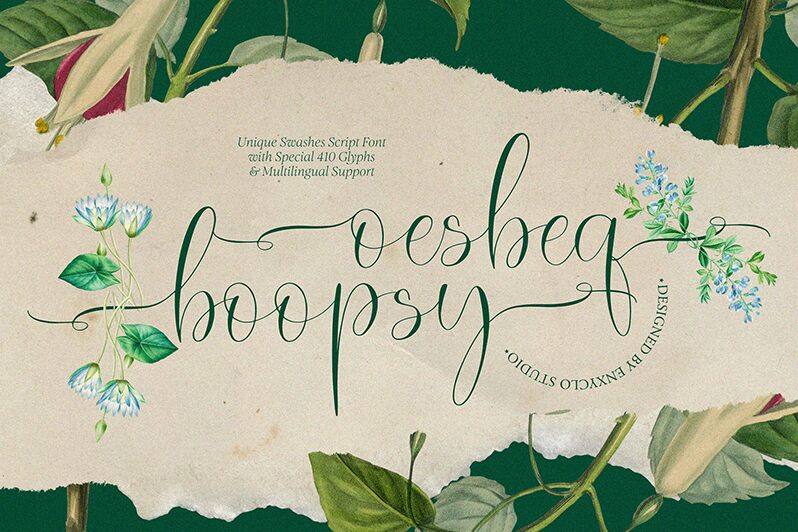
NCL Oesbeq Boopsy font, by Enxyclo Studio, is an ornamental and elegant handwritten typeface. Capturing human expression and emotions like no other, this script typeface flaunts luxurious, artistic, and sophisticated characters. Each letter in this font is highlighted by flowing forms and decorative details meant to give your texts a romantic and expressive visual appearance. Oesbeq Boopsy is a free handwritten font option for your exquisite typography projects.
Elegant ornamental typefaces like this one are particularly useful when you need to convey a fancy visual. Use it to create beautiful wedding invitations, luxury fashion designs, feminine branding designs, and holiday cards. Boopsy would also look fantastic on greeting cards, certificates, magazine covers, and posters.
Websites, social media posts, and display advertisements are also some great use case scenarios for this resource.